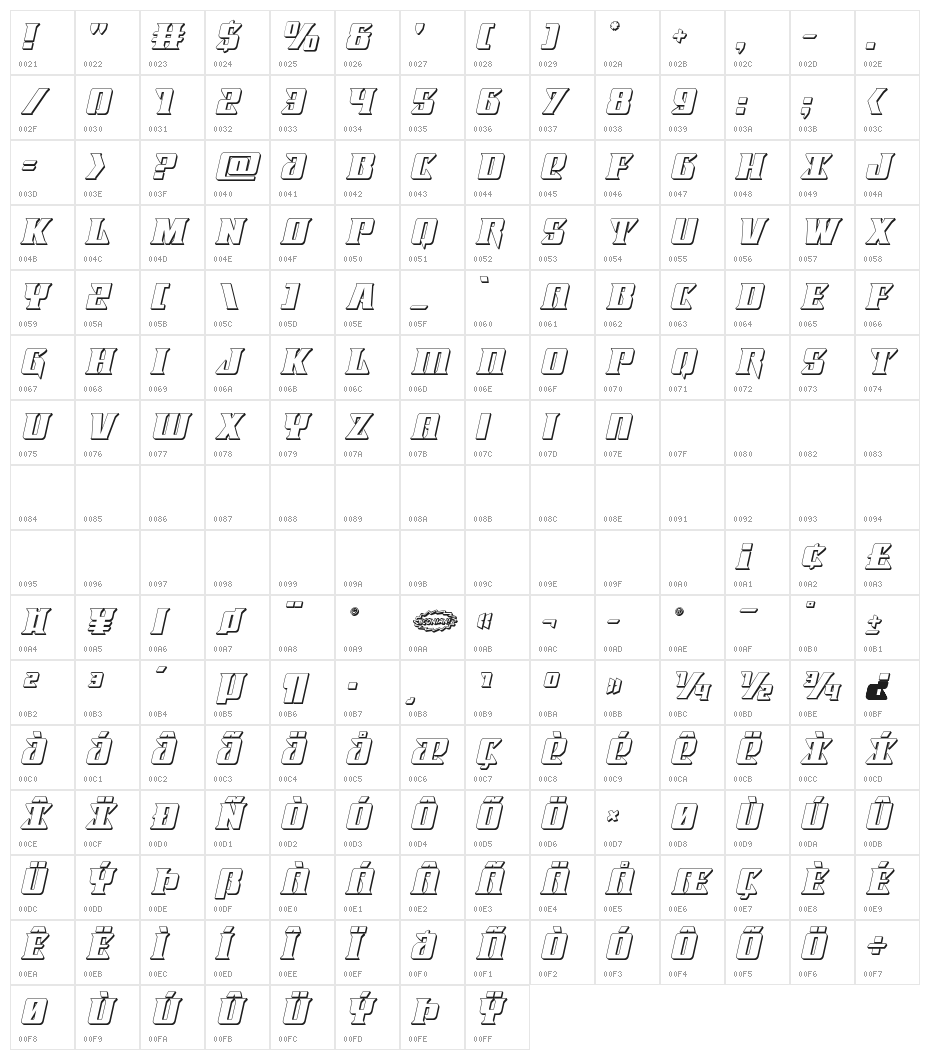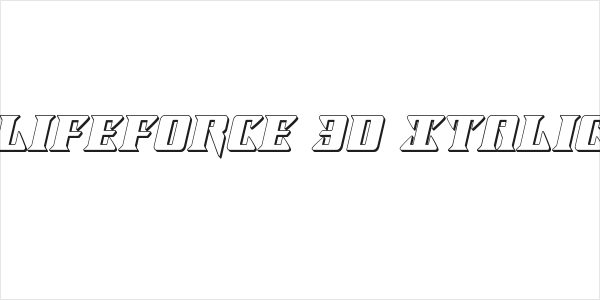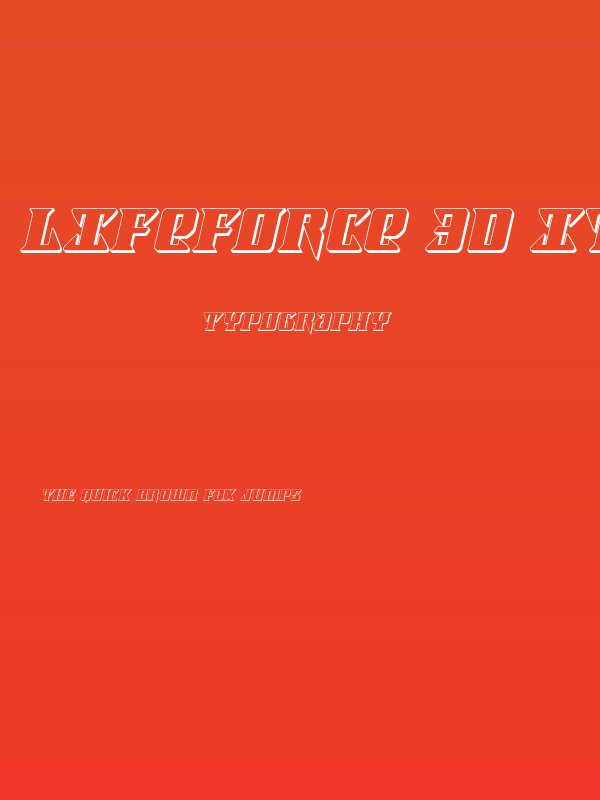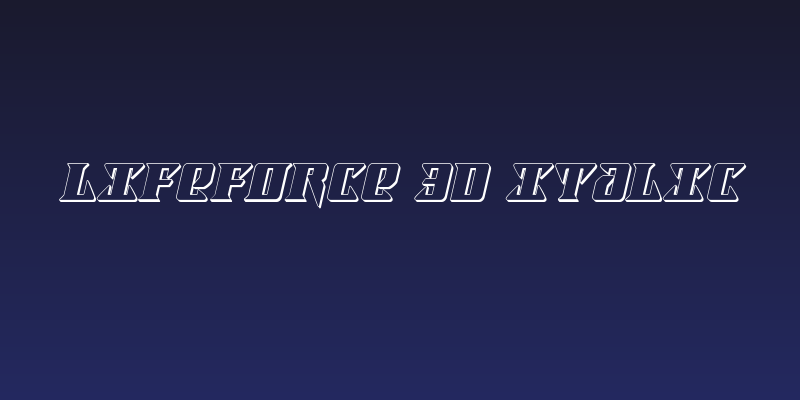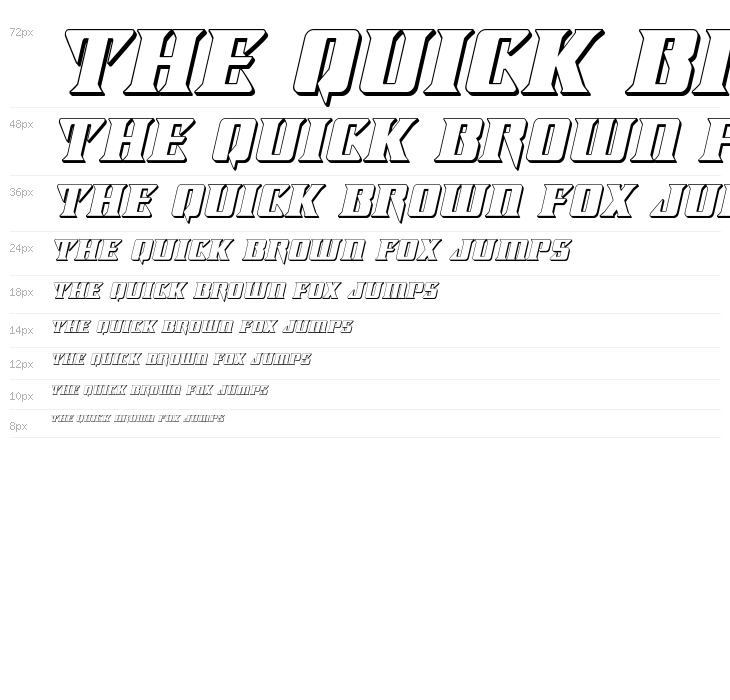
Lifeforce 3D Italic Font
Lifeforce 3D Italic Description
This font features a bold, three-dimensional design with a distinct italic slant, giving it a dynamic and futuristic appearance. The characters are outlined with a shadow effect, enhancing the 3D illusion. Each letter is constructed with sharp angles and clean lines, contributing to a modern and edgy aesthetic. The uppercase and lowercase letters maintain a consistent style, while the numbers and special characters seamlessly integrate into the overall design. The font's unique style makes it ideal for projects that require a strong visual impact.
Proposed ProjectsIdeal for video game titles, movie posters, futuristic branding, and digital artwork.